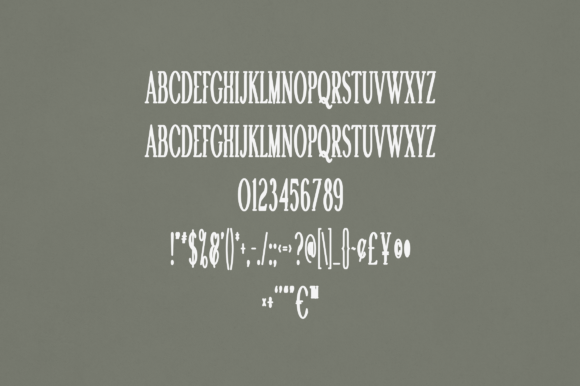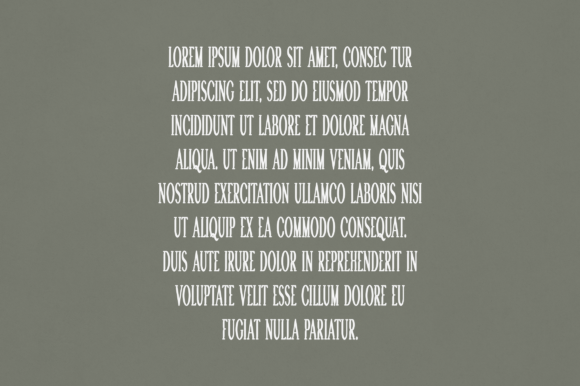
Introducing Cliff Font: Elevate Your Typography with Elegance and Versatility
In the world of typography, a font can make or break the visual identity of a design project. If you’re a designer or crafter looking for a unique and stylish font to elevate your work, look no further than Cliff Font. This elegant and versatile font is perfect for a wide range of applications, from branding and logo design to product packaging and magazine headers.
The Characteristics of Cliff Font
Cliff Font is a beautifully crafted font that boasts a range of characteristics that set it apart from other fonts. Its elegant and refined design makes it perfect for creating sophisticated and eye-catching typography. The font features:
- Unique letterforms: Each letter in Cliff Font has been carefully designed to be distinct and recognizable, making it perfect for use in logos and branding.
- Versatile style: Cliff Font can be used in a variety of contexts, from formal and elegant to casual and playful.
- High legibility: The font is designed to be easy to read, making it perfect for use in body text as well as headlines.
Uses for Cliff Font
Cliff Font is an incredibly versatile font that can be used in a wide range of design projects. Here are some ideas to get you started:
- Branding and logos: Cliff Font is perfect for creating unique and memorable logos that will help your brand stand out.
- Product packaging: The font’s elegant design makes it perfect for use on product packaging, adding a touch of sophistication to your products.
- Magazine headers: Cliff Font is ideal for use in magazine headers, adding a touch of elegance and refinement to your publication.
- Home-ware designs: The font’s versatile style makes it perfect for use in home-ware designs, from kitchen utensils to home decor.
- Text overlays: Cliff Font can be used as a stylish text overlay to any background image, adding a touch of sophistication to your designs.
Why Choose Cliff Font?
With so many fonts available, why choose Cliff Font? Here are just a few reasons why designers and crafters love this elegant and versatile font:
- Unique design: Cliff Font is a one-of-a-kind font that will help your designs stand out from the crowd.
- Easy to use: The font is incredibly easy to use, with a simple and intuitive design that makes it perfect for designers of all skill levels.
- High-quality: Cliff Font is a high-quality font that is designed to produce crisp and clear results, even at small sizes.
Tips for Using Cliff Font
Here are a few tips for getting the most out of Cliff Font:
- Experiment with different sizes: Cliff Font looks great at a wide range of sizes, so don’t be afraid to experiment to find the perfect size for your design.
- Pair with other fonts: Cliff Font pairs perfectly with other fonts, so try combining it with a sans-serif font for a stylish contrast.
- Use it consistently: To get the most out of Cliff Font, use it consistently throughout your design project to create a cohesive and professional look.
Cliff Font is an elegant and versatile font that is perfect for designers and crafters looking to elevate their typography. With its unique design, high legibility, and versatile style, it’s the perfect choice for a wide range of design projects. Whether you’re creating a logo, product packaging, or magazine header, Cliff Font is sure to make your typography truly unique. So why wait? Try Cliff Font today and see the difference it can make in your designs!